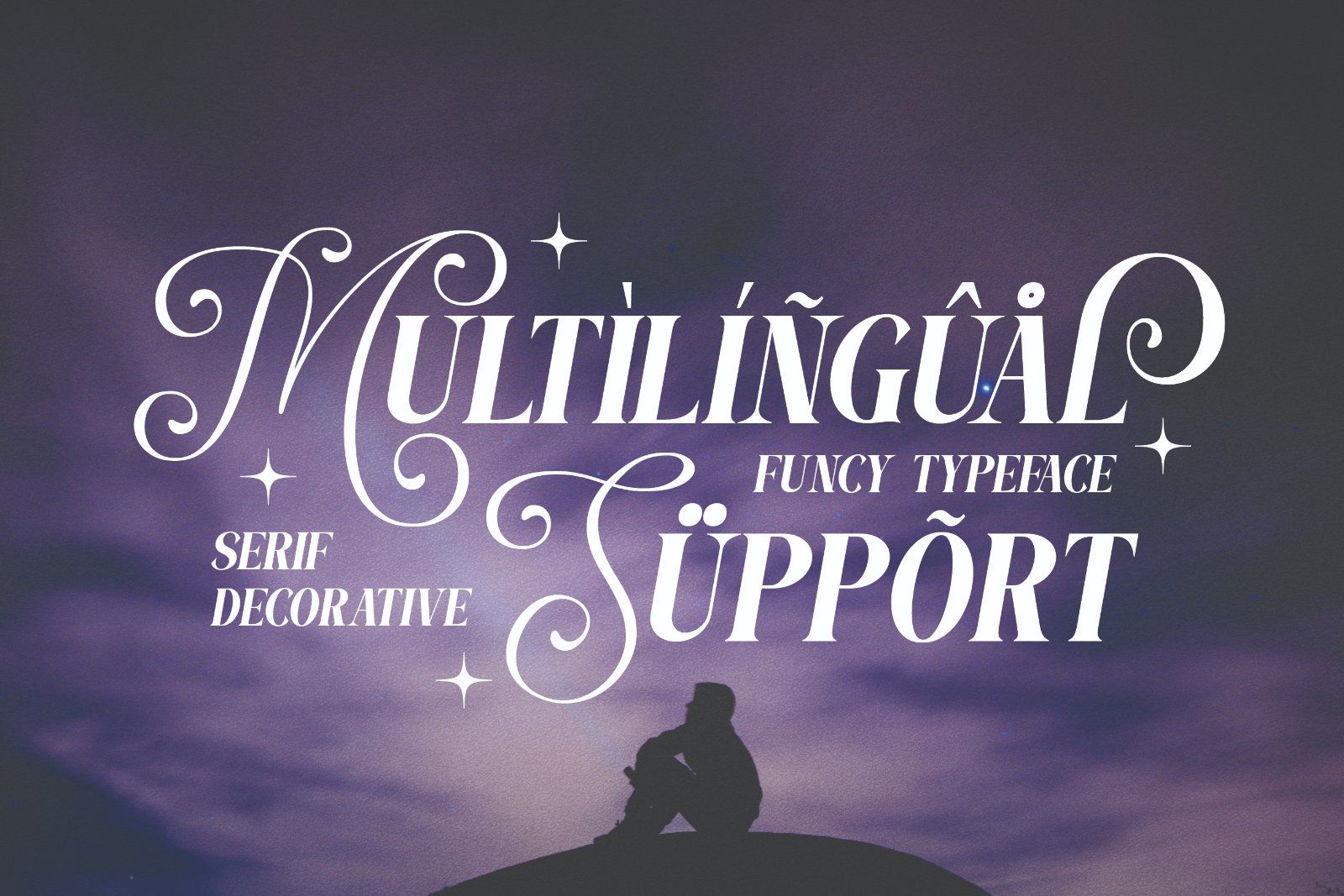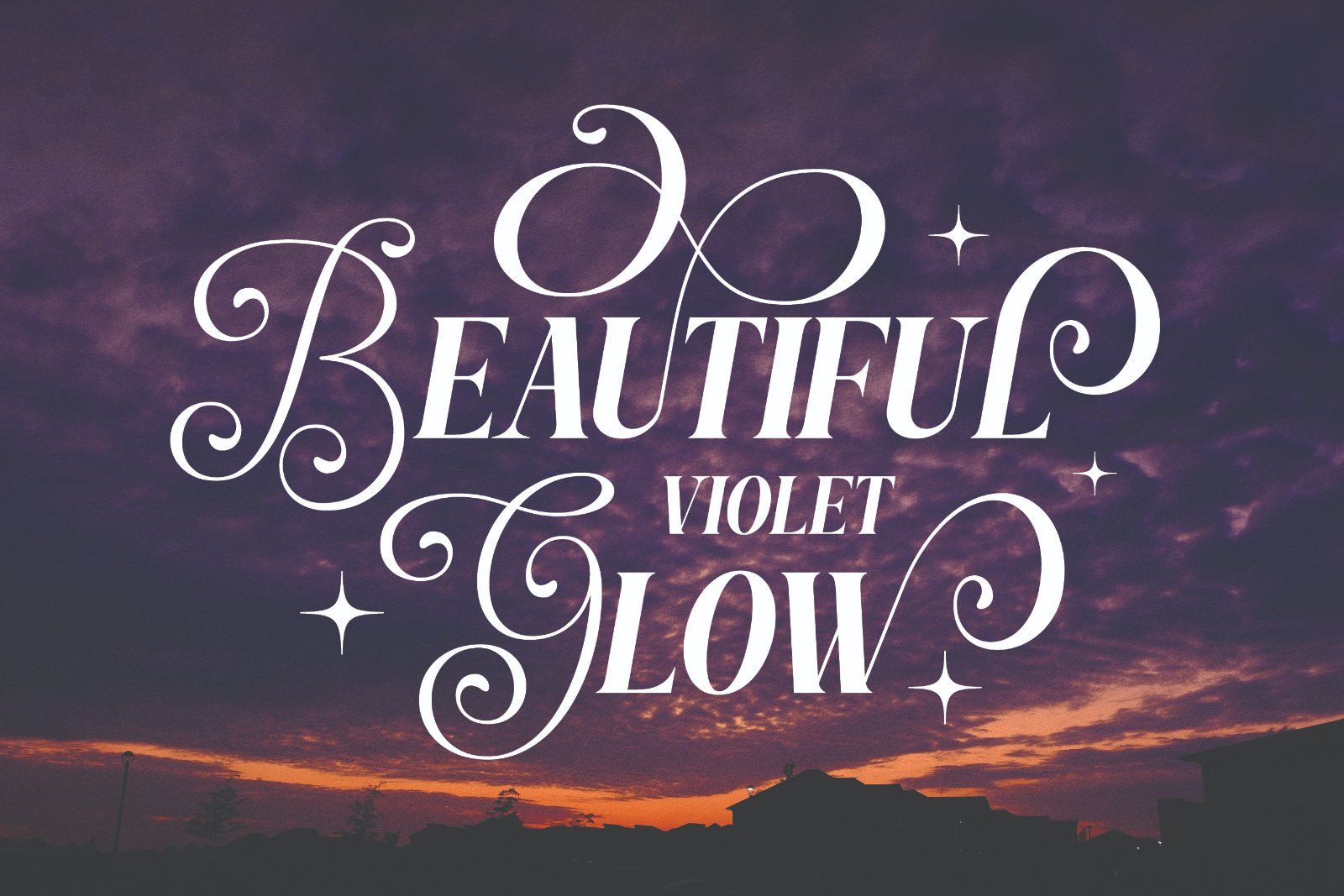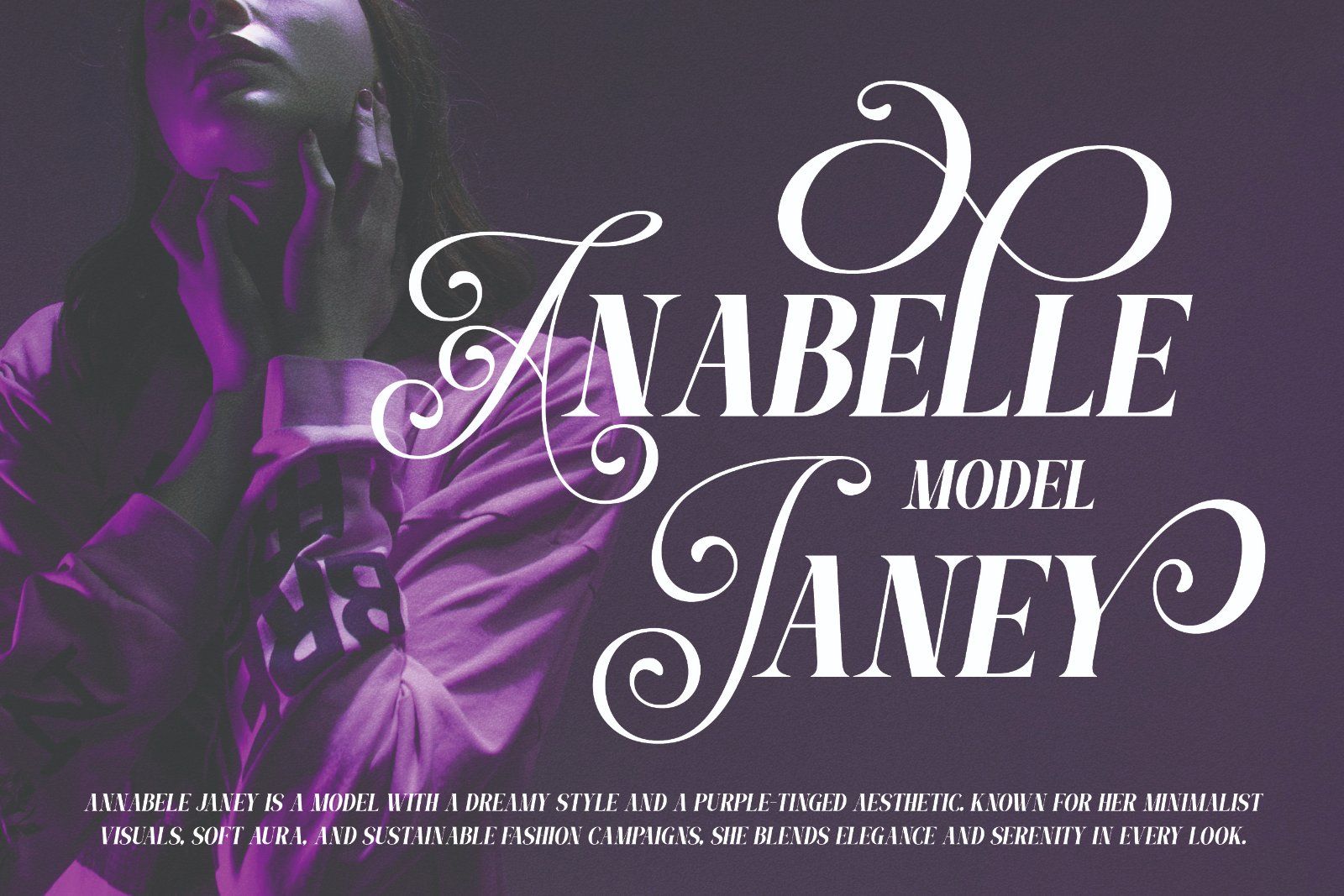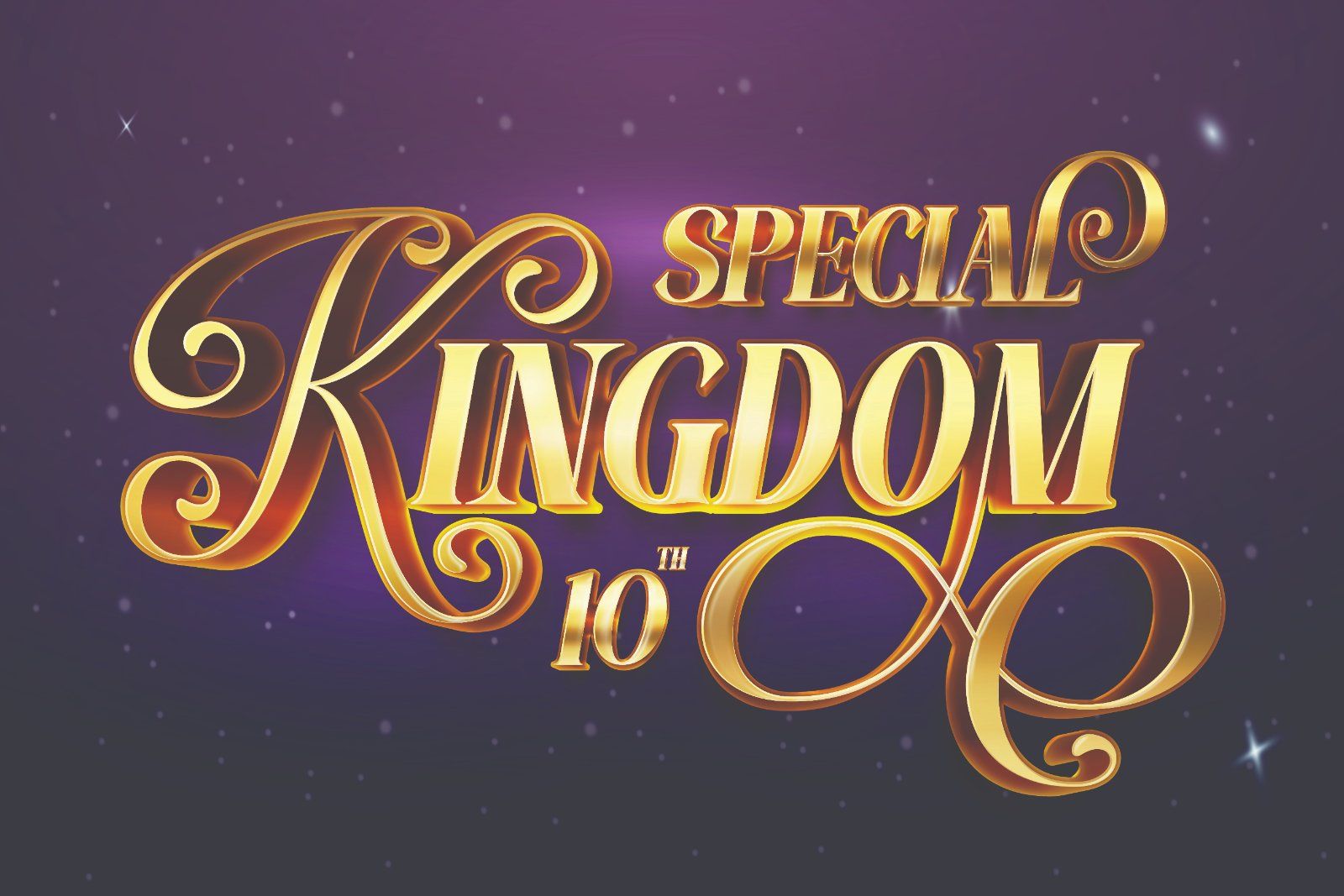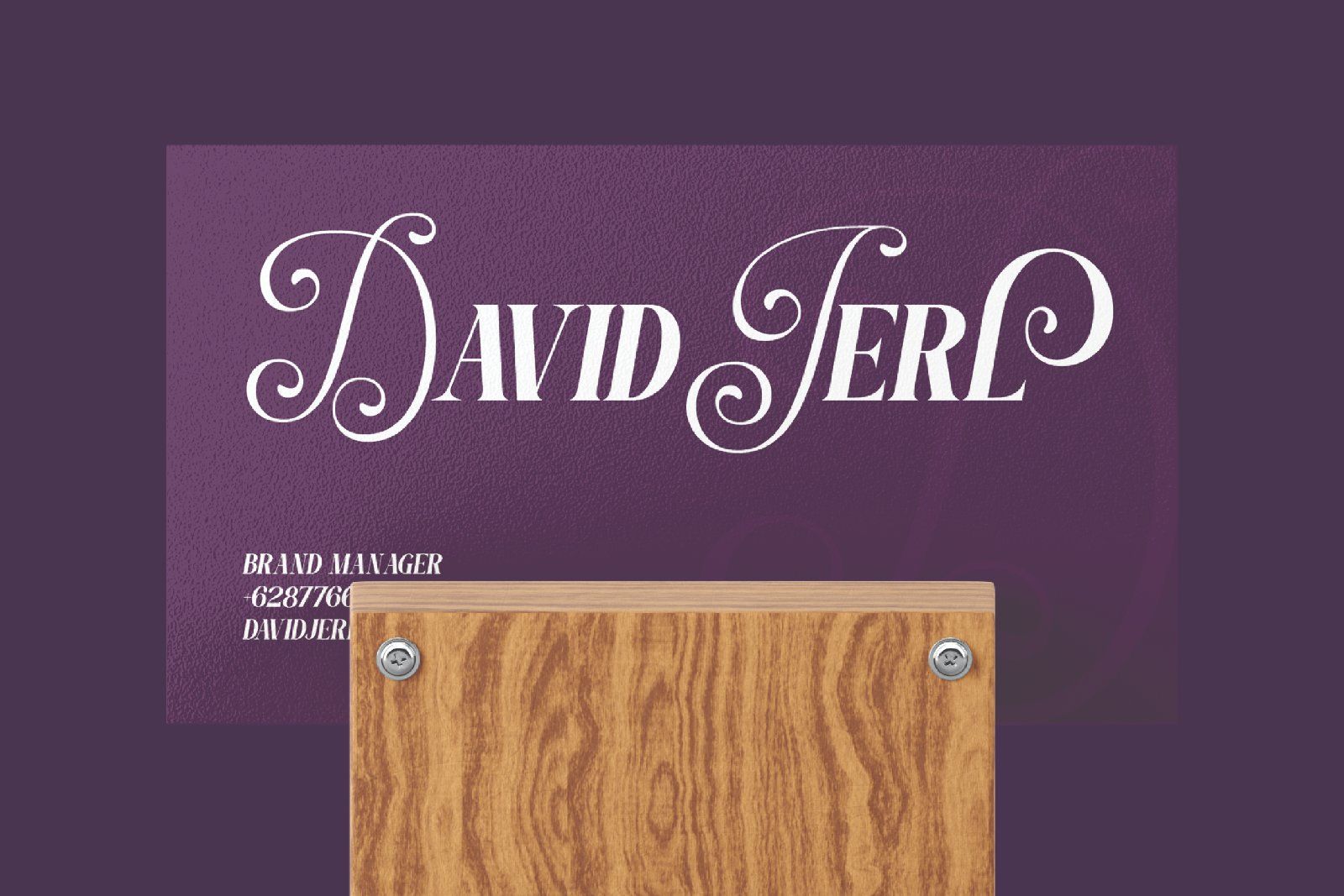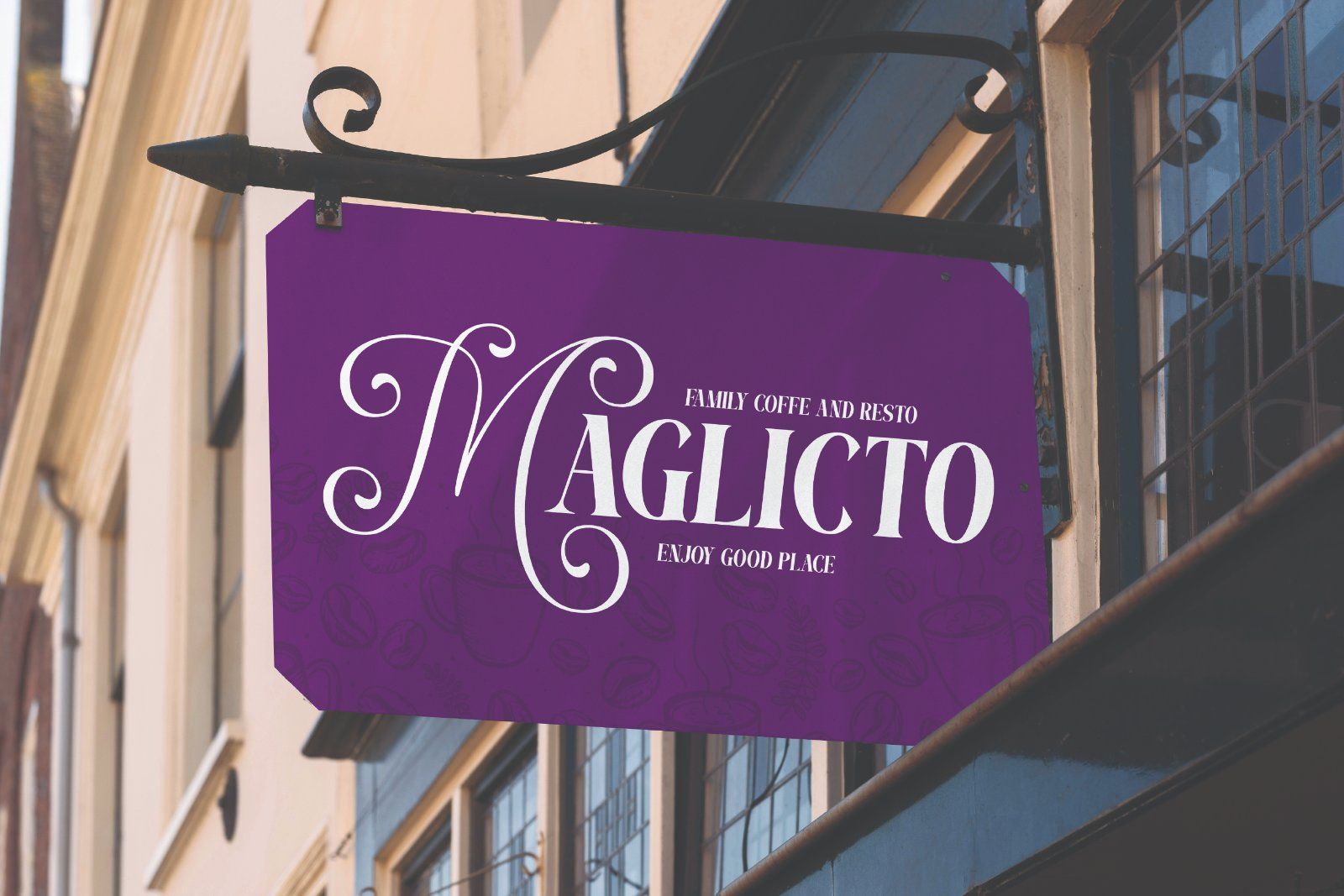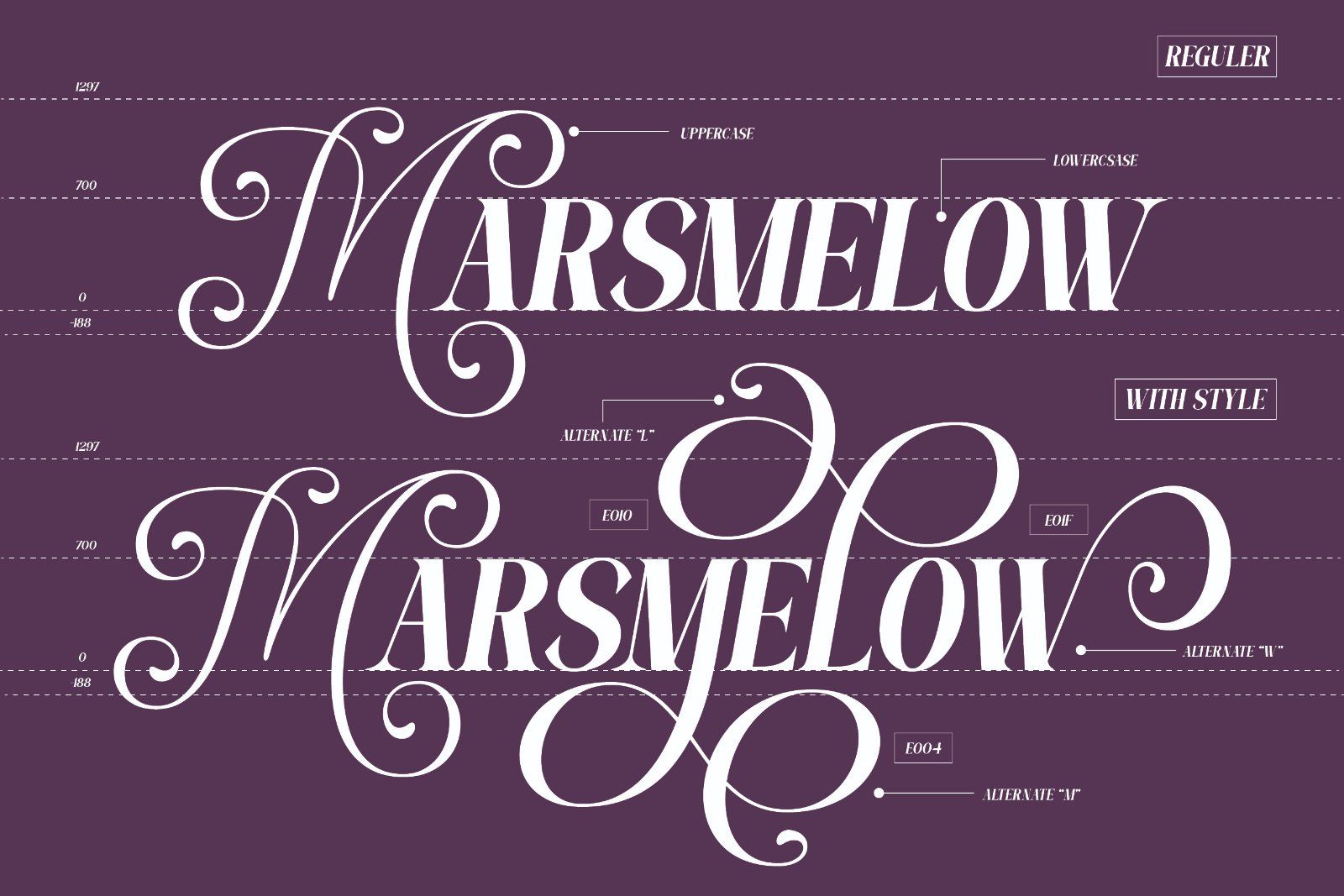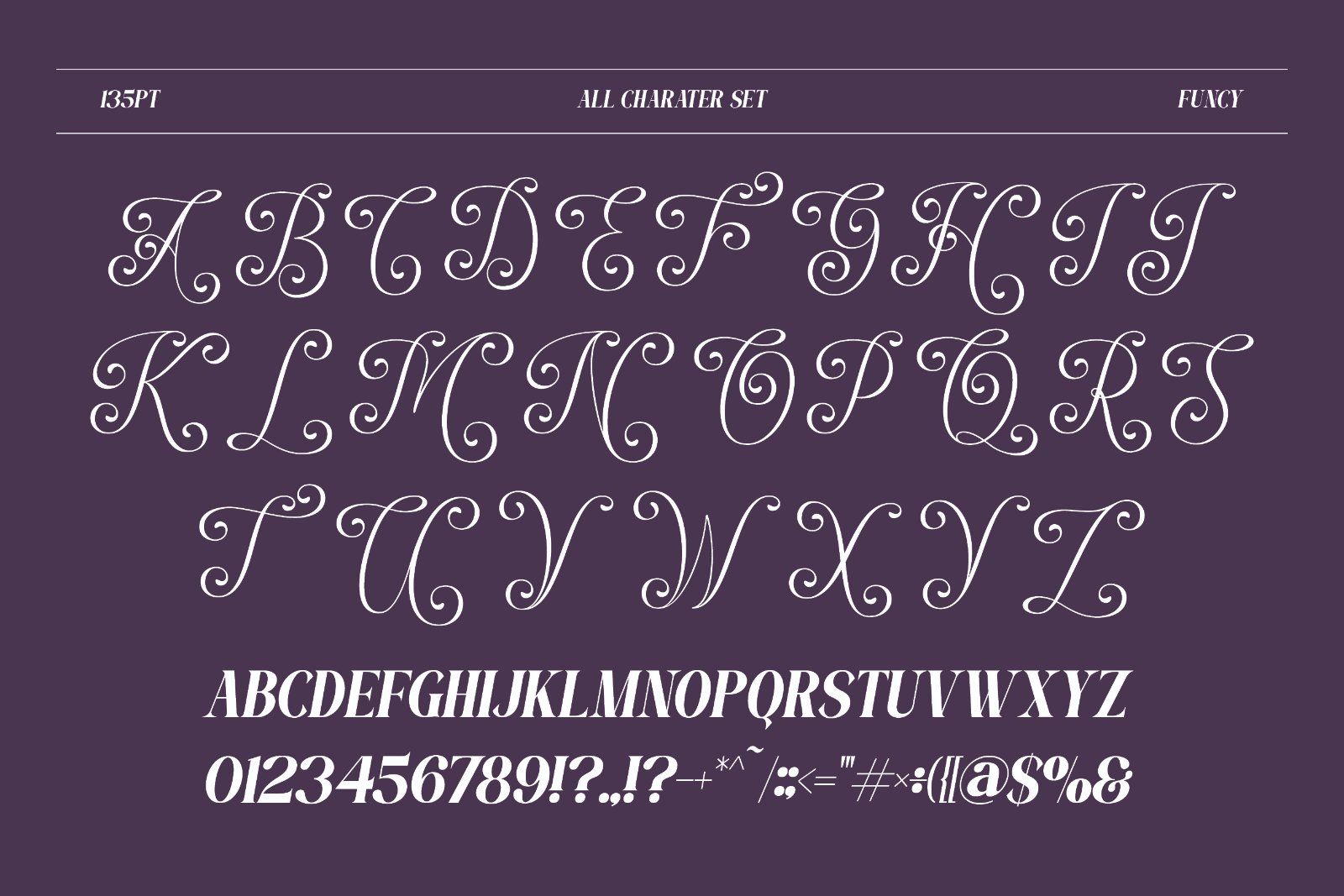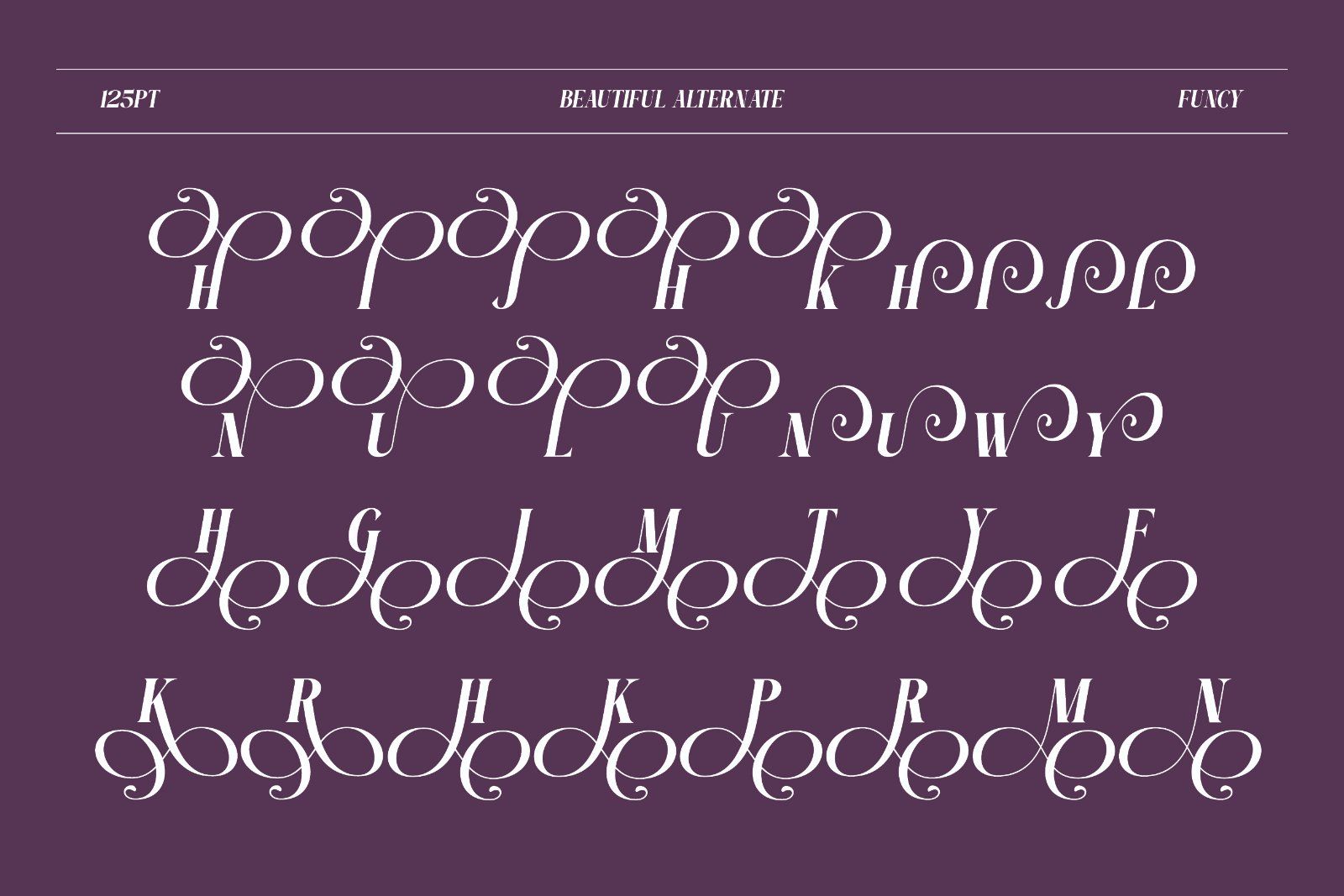
FUNCY is a sophisticated serif decorative font designed to bring charm, elegance, and personality to your creative projects. With its graceful swashes, ornamental details, and bold letterforms, FUNCY perfectly blends classic beauty with modern refinement. This typeface is ideal for creating standout headlines, branding, packaging, invitations, logos, or signage that needs a touch of decorative flair.
Multilingual
• Uppercase alphabet A-Z
• Lowercase alphabet a-z
• Numbers 0-9
• Some punctuation
• Some Alternates and Ligatures